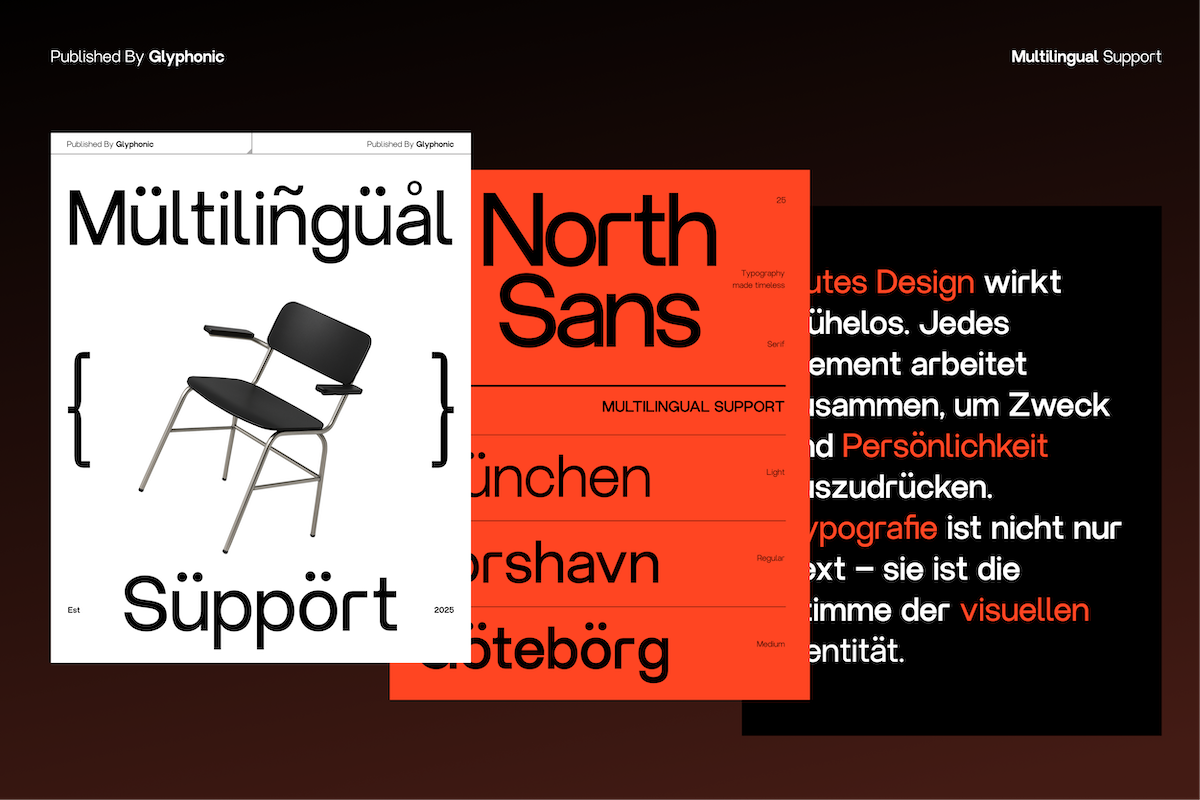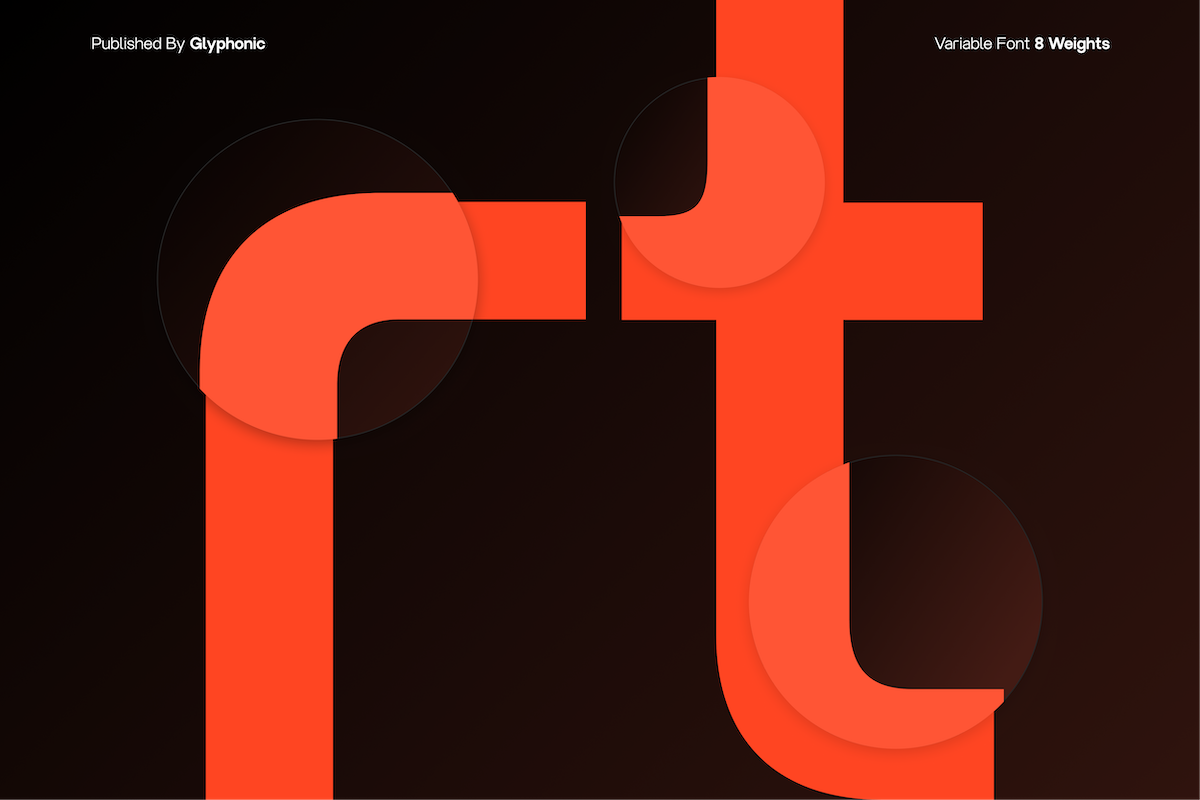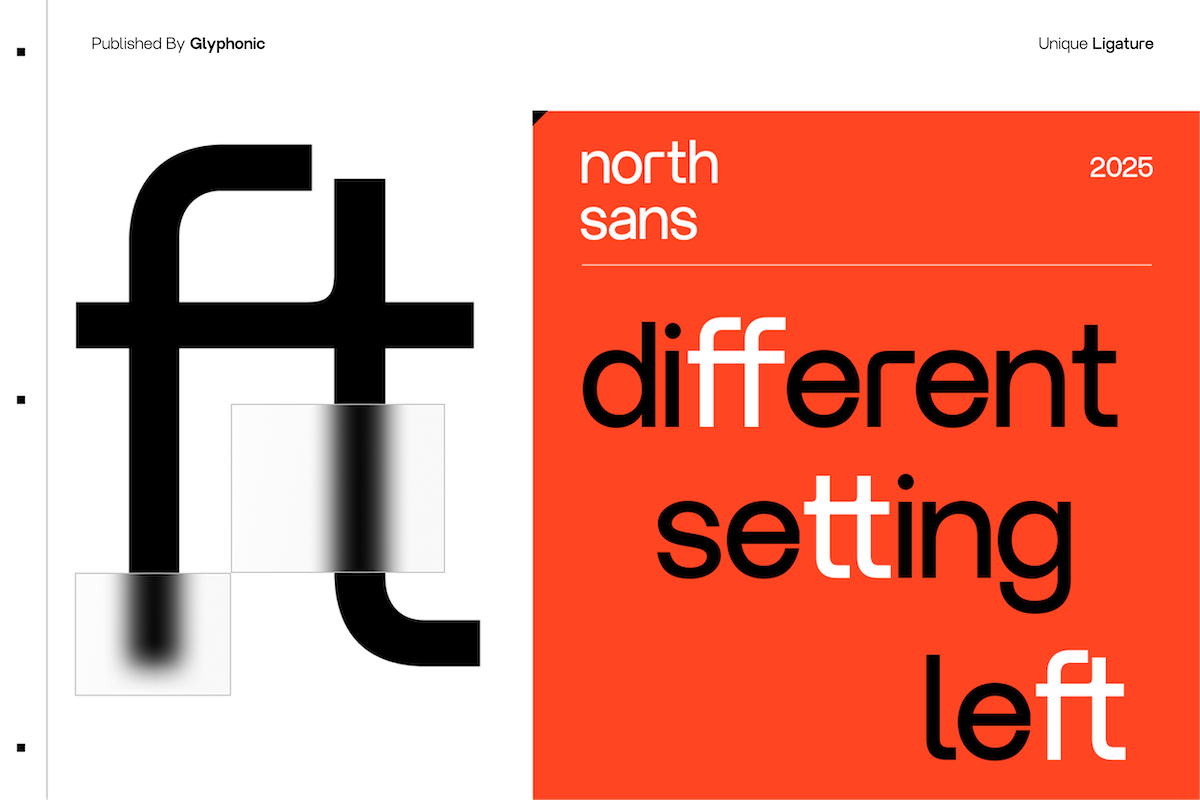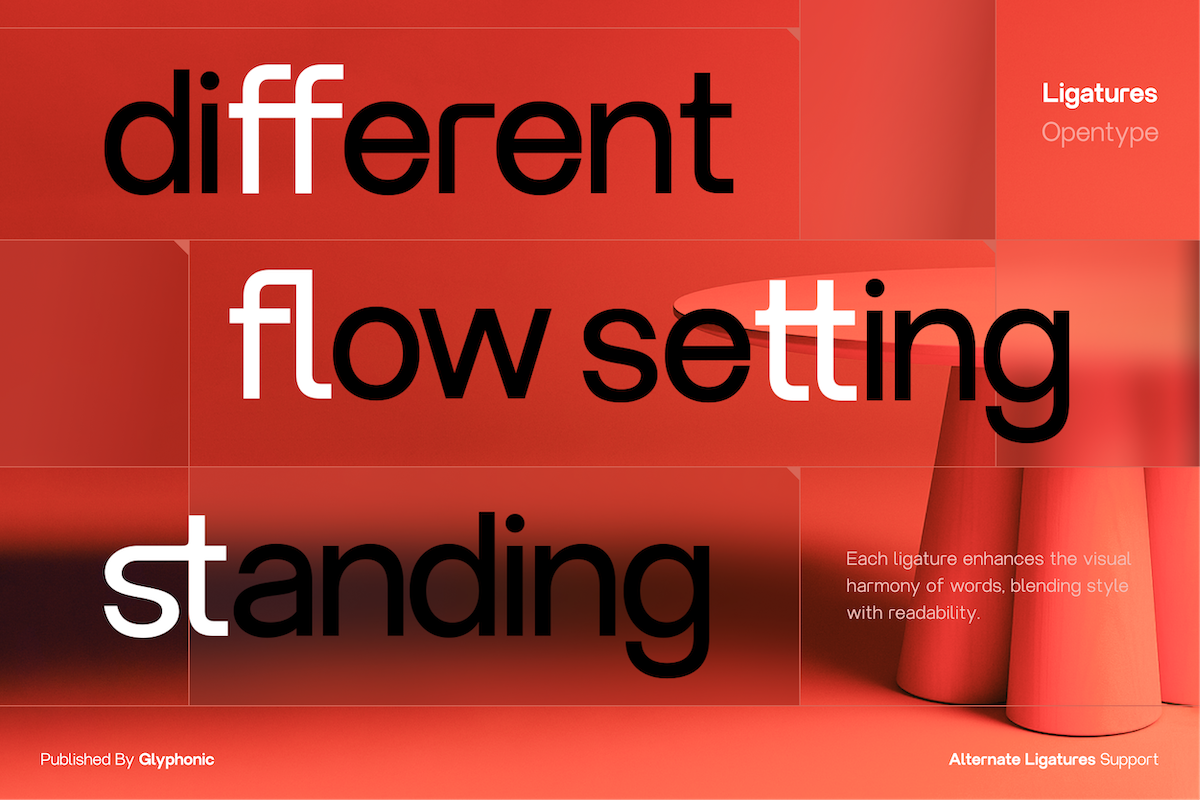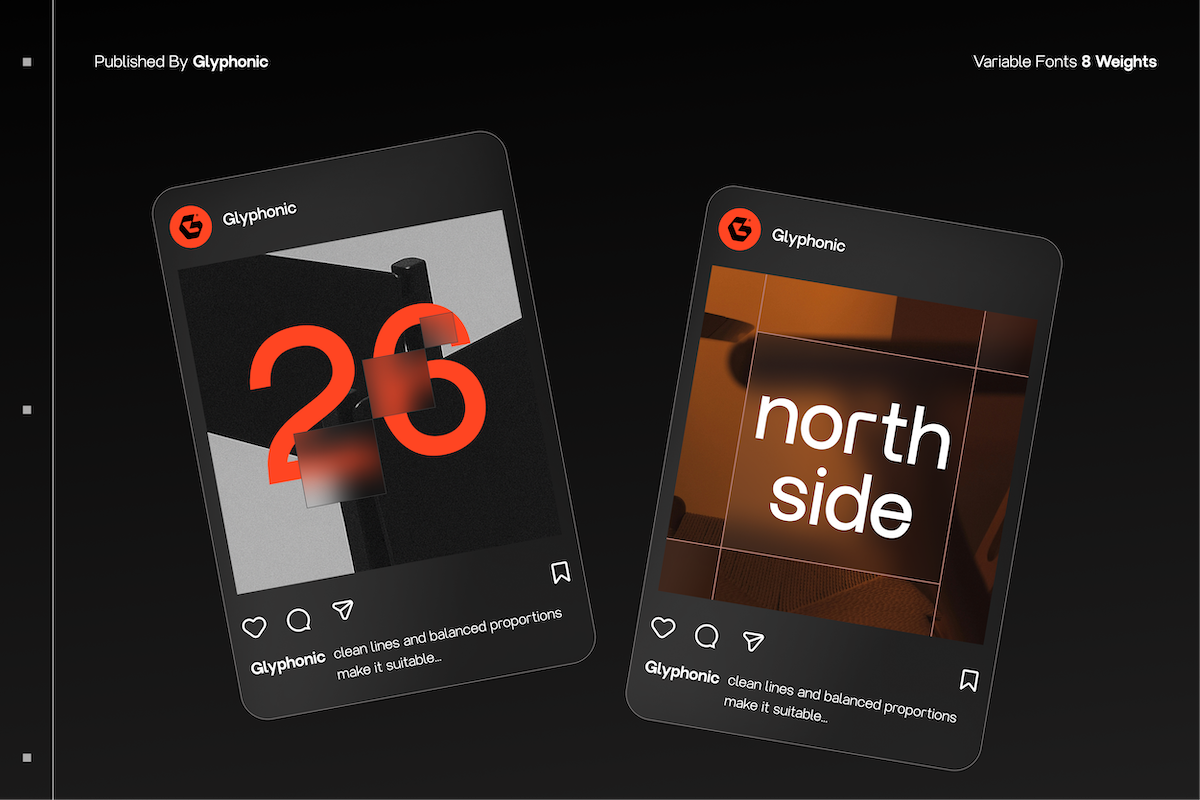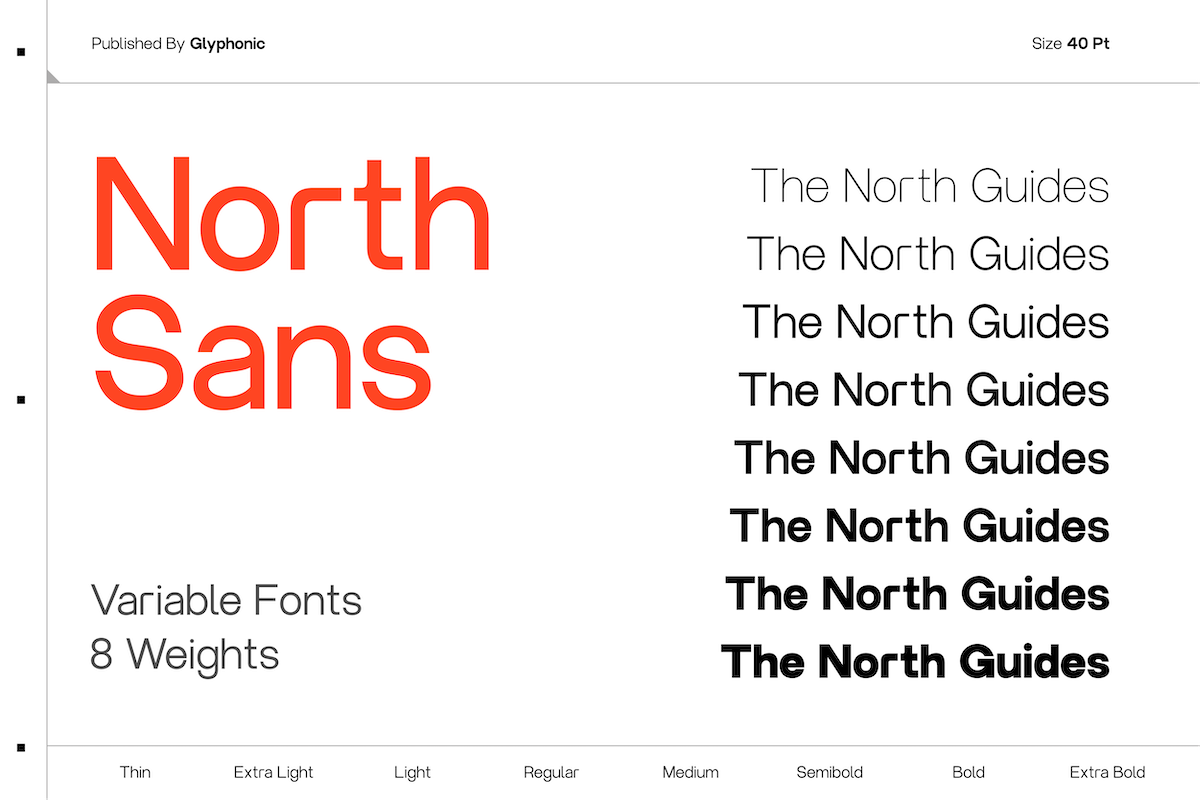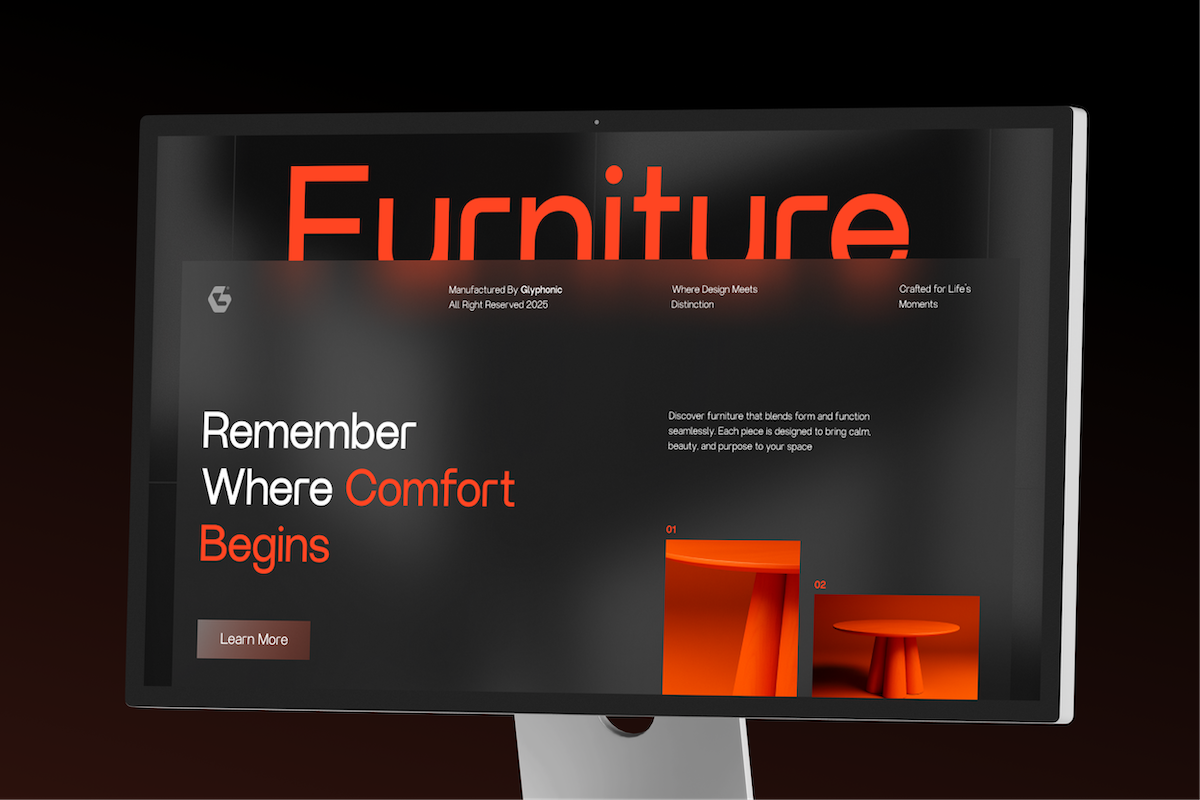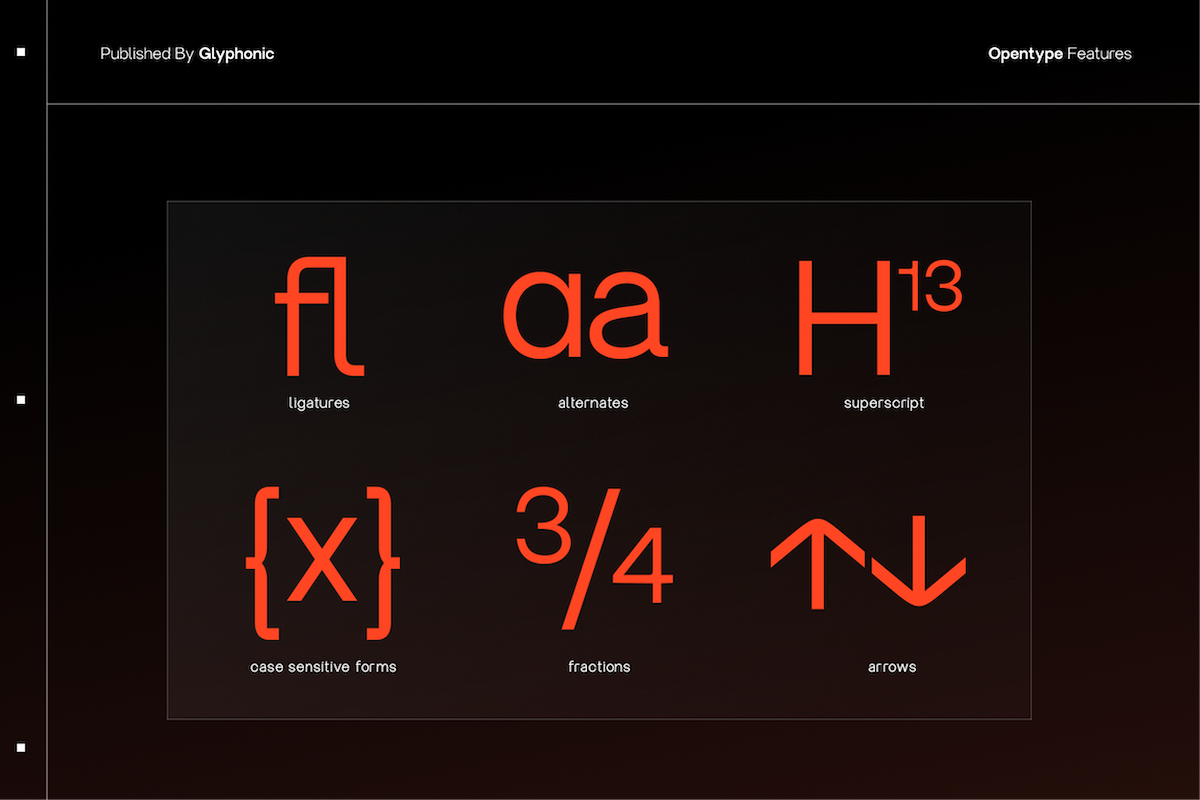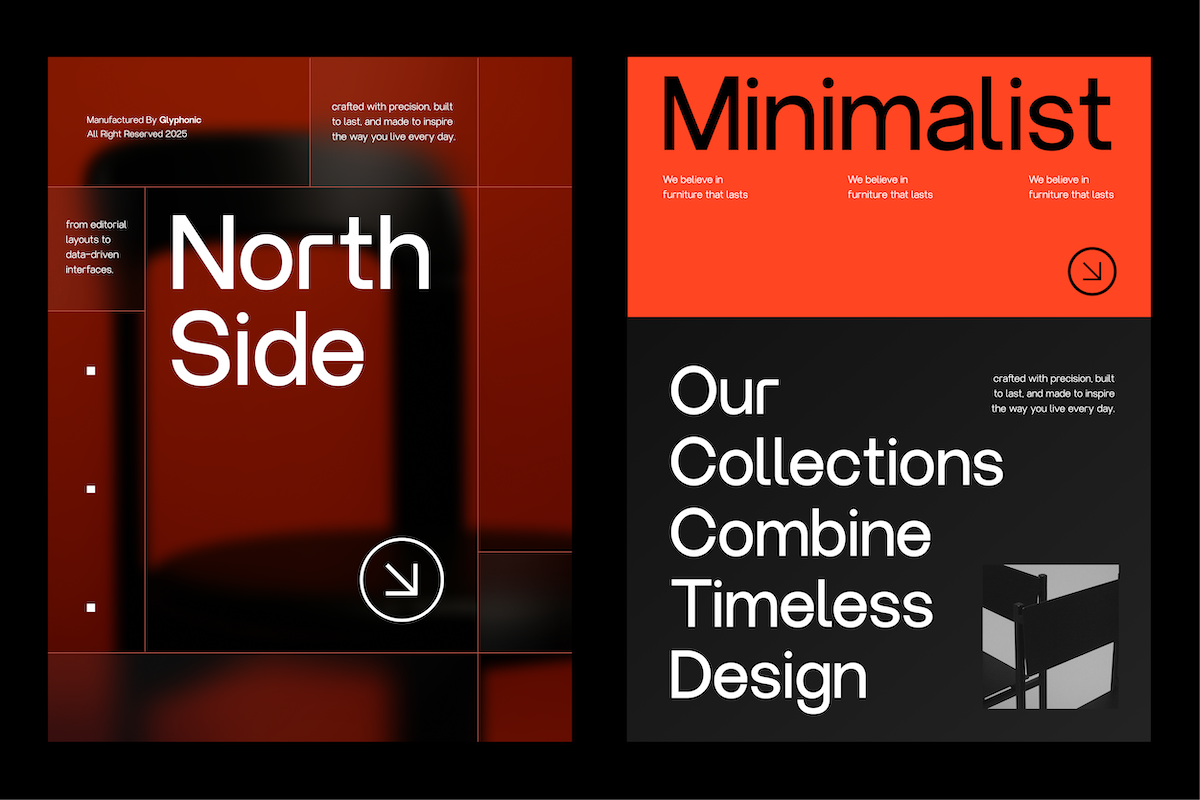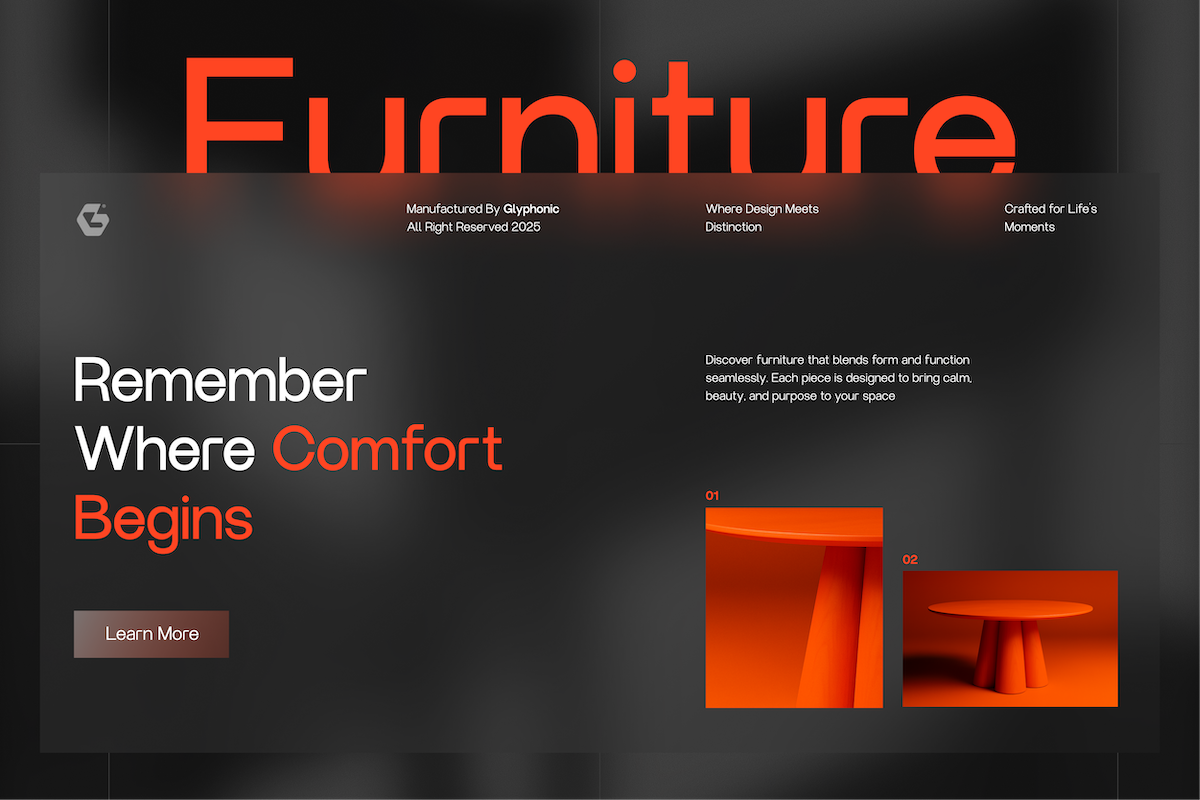
GC North Sans - Neo Modern Sans
GC North Sans – Neo Modern Sans is a contemporary sans serif typeface crafted with a focus on clarity, balance, and modern precision. Its clean geometry and confident strokes create a strong visual presence that performs flawlessly across both digital and print media. Designed to embrace simplicity without sacrificing character, it’s ideal for branding, editorial design, tech-inspired visuals, and forward-thinking identities.
Balanced proportions and refined detailing make GC North Sans both adaptable and distinctive. Whether you’re designing sleek interfaces, bold headlines, or minimalist layouts, this font delivers power, modernity, and timeless sophistication to your typography.
- Neo-Modern Geometric Construction
- Multilingual Support (170+ Languages)
Bring clarity, modern strength, and refined simplicity to your design with GC North Sans.